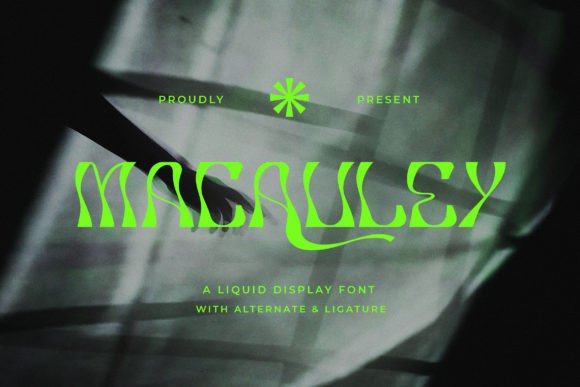
Dive into the world of Macauley Font, a remarkable display font that exudes individuality and charm. This liquid display font, skillfully crafted by TypeFactory, is a masterpiece of creativity, designed to elevate your designs to new heights. Immerse yourself in its casual allure, which brings a sense of groundedness and legibility to any project.
With Macauley Font, your words will dance with effortless grace, captivating your audience's attention. Whether you're crafting a bold headline, designing an eye-catching logo, or creating a unique branding experience, this font will make your message shine. Its versatility extends beyond mere aesthetics, seamlessly adapting to busy backgrounds and standing tall as a standalone statement.
The distinct characteristics of Macauley Font make it a versatile choice for a wide range of applications. Use it to craft stunning posters that demand attention, create social media posts that pop, or design packaging that captivates customers. Its monochrome design aesthetic adds a touch of sophistication and elegance, making it perfect for creating high-end branding materials and eye-catching marketing campaigns.
Embrace the power of Macauley Font and unleash your creativity. Its unique blend of casual charm and undeniable charisma will transform your designs into works of art. Experience the beauty of typography with Macauley Font, the liquid display font that will redefine your creative vision.
**Bonus Tip:** Pair Macauley Font with soft, muted colors for a calming and serene effect, or juxtapose it against vibrant, saturated hues for a bold and dynamic look.